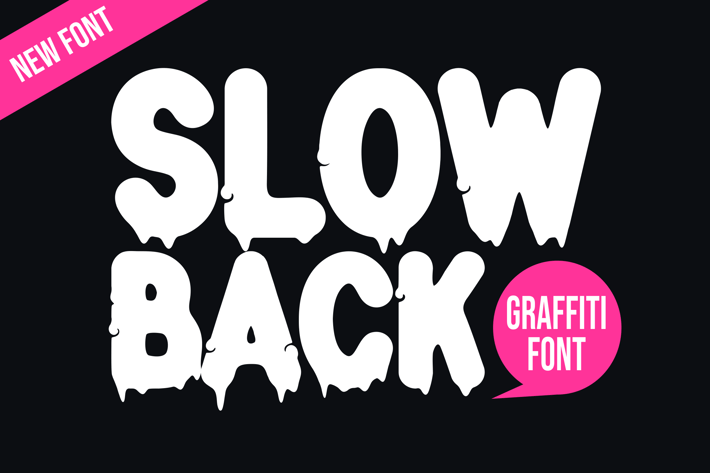
Slow Back - Handwritten Graffiti Font
Introducing our new product Slow Back Font - Handwritten Graffiti Font
Slow Back Font - Modern Font is a bold and authentic display font. The font is suitable for any branding project like logo,
t-shirt printing, esport, and many more. outstanding in a wide range of contexts.
Slow Back Uppercase
Slow Back Lowercase